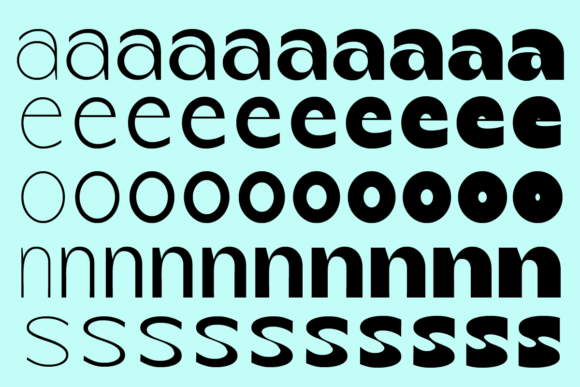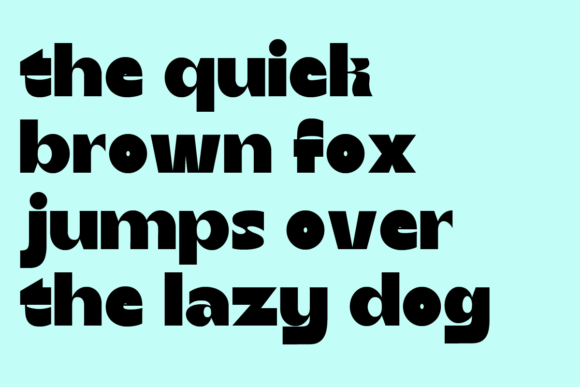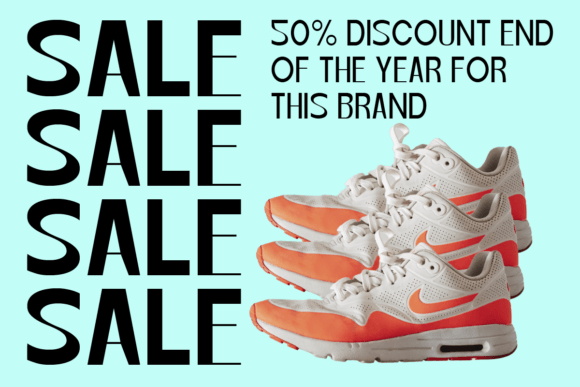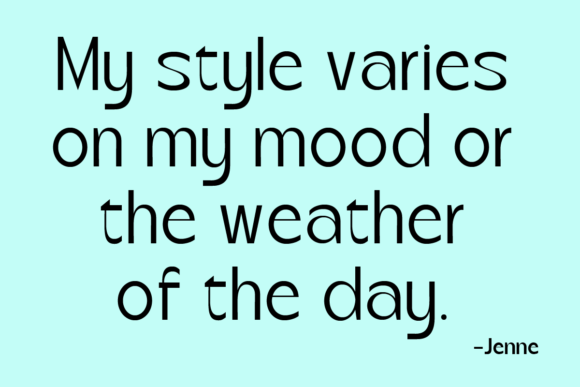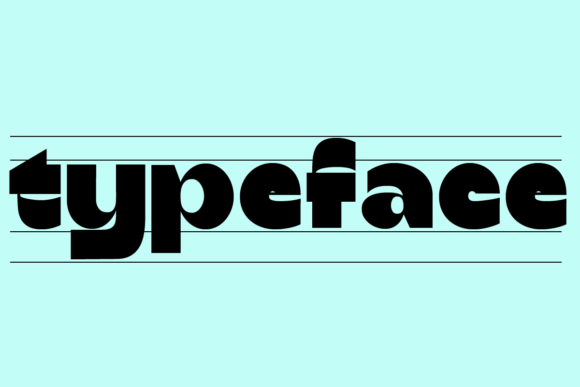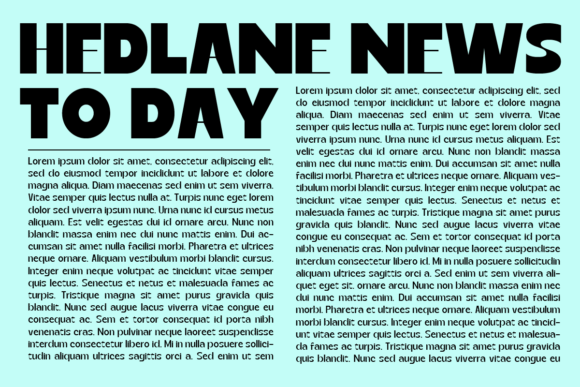
Introduction to Raftern Font
Raftern is a unique and modern family of sans-serif fonts.
This typeface is versatile and can be used successfully in magazines, posters, branding, and websites .
Key Features of Raftern Font
Why Choose Raftern Font?
Raftern Font offers exceptional quality and versatility, making it a valuable addition to your design toolkit. Whether you’re creating for personal projects or commercial use, Raftern Font delivers professional results.